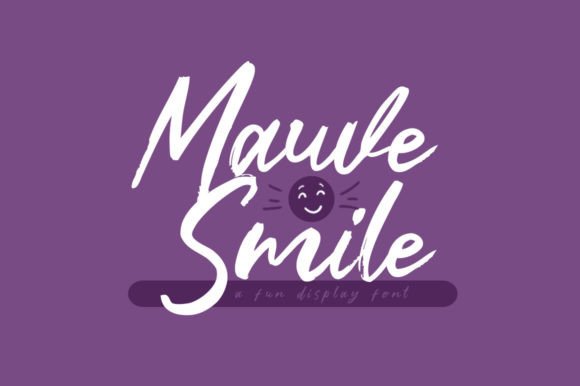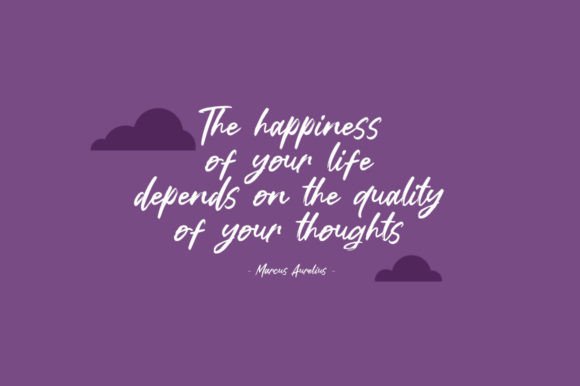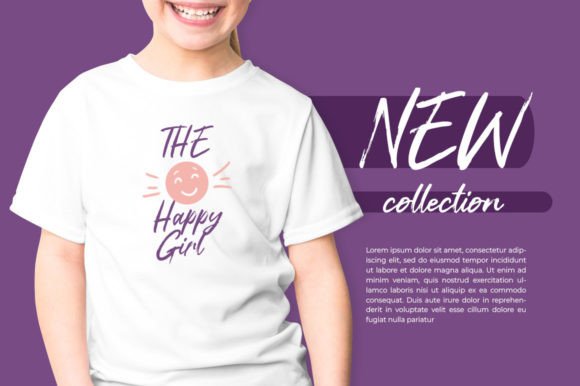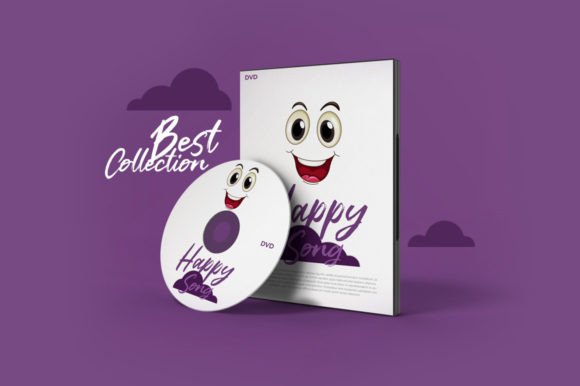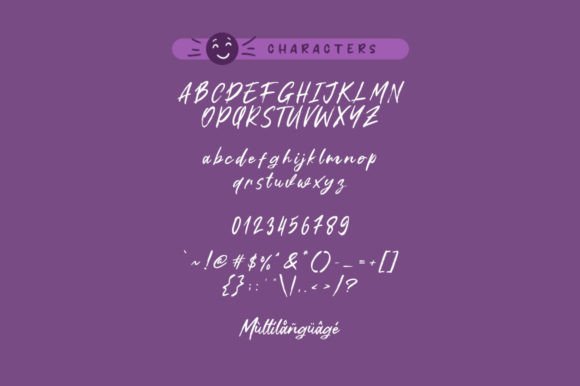
Mauve Smile Font
Add a lively and playful vibe to your creative projects with the Mauve Smile font. This fun and cool brush script font is designed to bring energy and charm to any design. It is perfect for cartoon-related artwork, children’s games, and any creation that needs a joyful, playful touch.
The Mauve Smile font features bold, flowing brush strokes that create a dynamic and cheerful appearance. Its unique style gives your designs a friendly and approachable feel. Whether you’re working on digital content or print projects, this font helps your work stand out.
You can use the Mauve Smile font for a variety of projects, including children’s books, game graphics, posters, greeting cards, and social media posts. It adds an irresistible fun factor to your designs, making them more engaging and memorable.
Despite its bold and playful nature, the Mauve Smilefont remains highly readable. Whether used for large headlines or smaller details, it brings clarity and vibrancy to your projects.
Using this font will give your designs a unique, fun-filled character. If you want to add a cool and cheerful brush script to your creative toolkit, the Mauve Smilefont is an excellent choice.
In summary, the Mauve Smilefont is a fun and cool brush script suitable for cartoons, children’s games, and playful designs. Download it today and bring energy and joy to your creative projects with Mauve Smile.